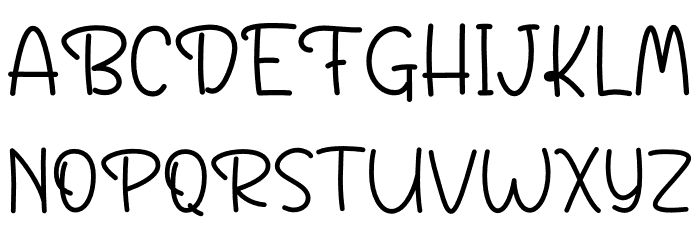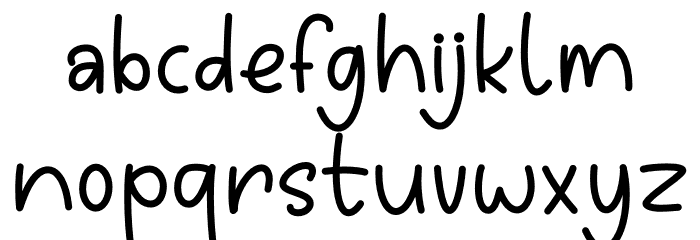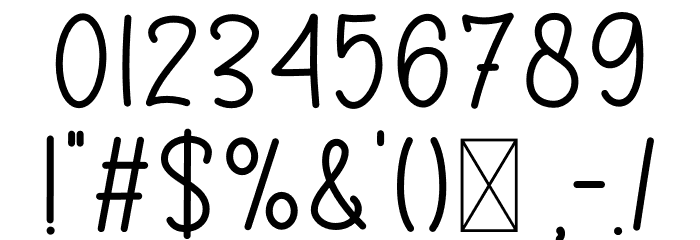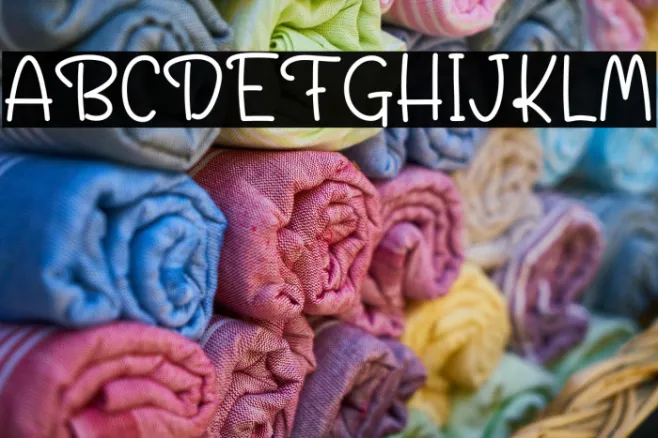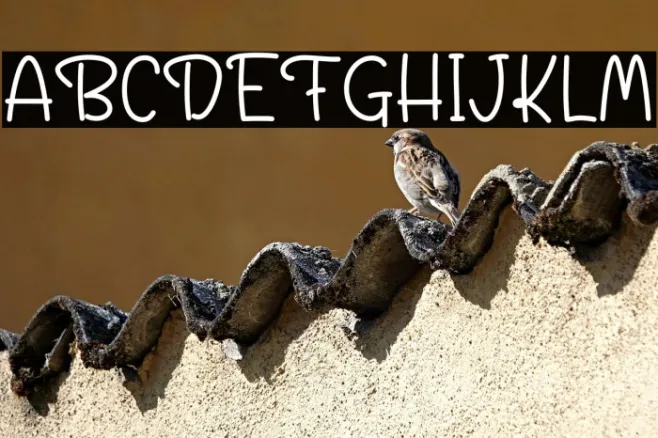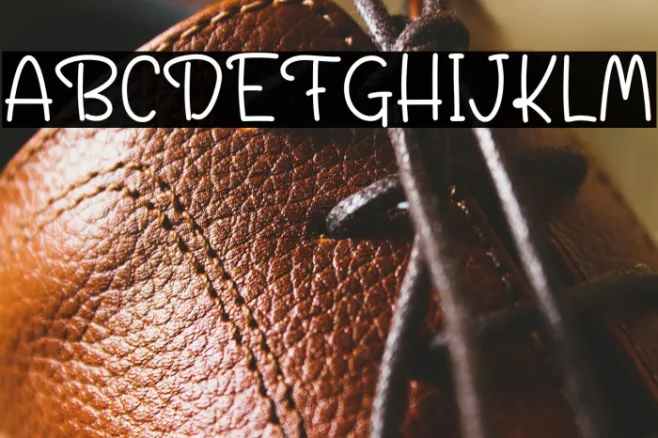
Beauty Autumn Font
A playful, handwritten font with a casual and friendly appearance. The letters are slightly irregular, giving it a personal touch.
Playful handwritten font with a casual style.
- Font: Beauty Autumn
- Proposed Projects: Greeting cards, children's books, informal invitations.
- Category: Handwritten
- Overall Style: Casual, Friendly
- Use Case: Informal text, Personal notes